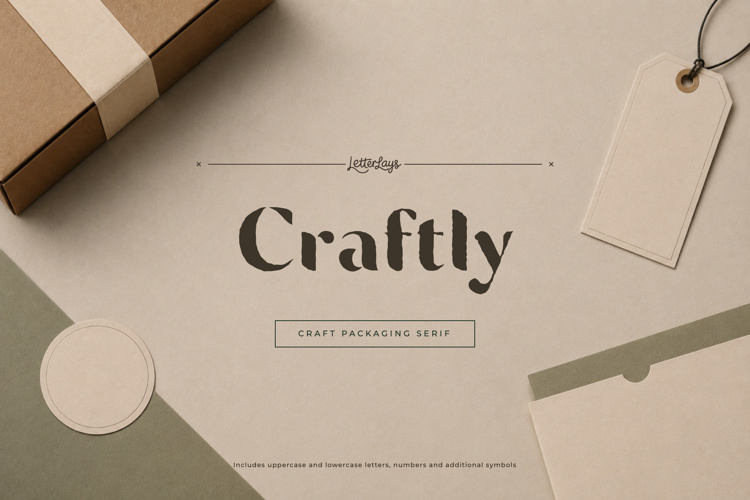
Craftly Font
✦ Craftly Free is a limited personal-use demo of the full Craftly typeface by Letterlays. Create craft packaging, small batch branding, coffee cups, food labels, and expressive display graphics with Craftly.
🎨 Style notes: ✨ Craftly is a craft packaging serif font with kraft paper branding, small-batch packaging, and earthy artisanal confidence.
🔤 This demo includes uppercase Latin letters, numerals and selected basic punctuation for personal mockups, layout tests and concept work.